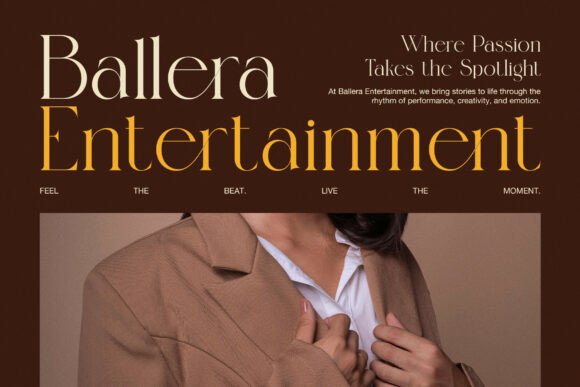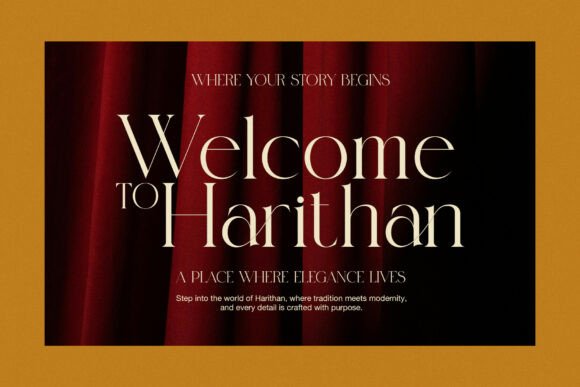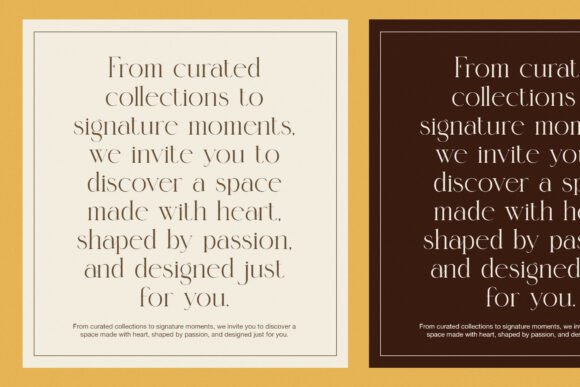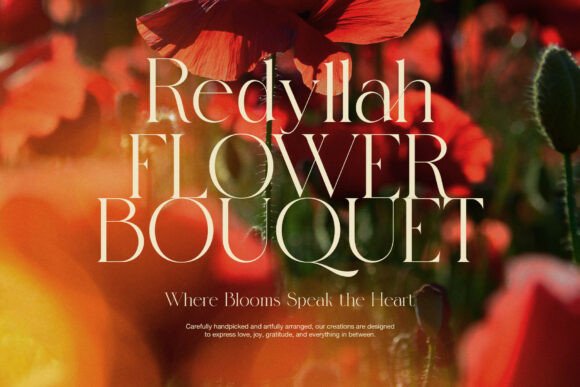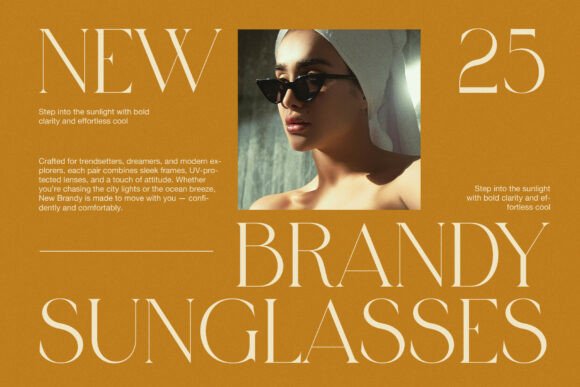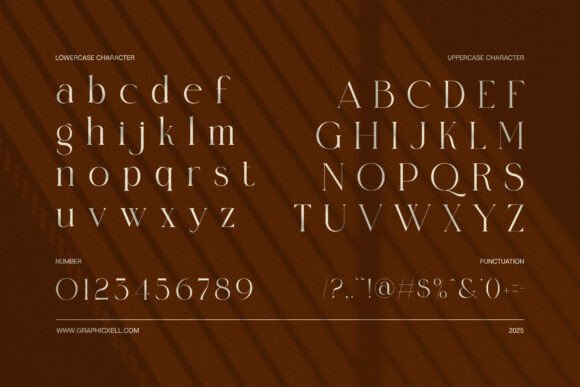
Introduction to Qelgis Font
Qelgis is a refined typeface that combines timeless elegance with clean, modern lines.
With its proportional letterforms and smooth flow, this font is designed to bring a professional and graceful look to any project Because it features thoughtfully crafted ligatures, Qelgis allows your typography to look more natural and fluid.
Key Features of Qelgis Font
Why Choose Qelgis Font?